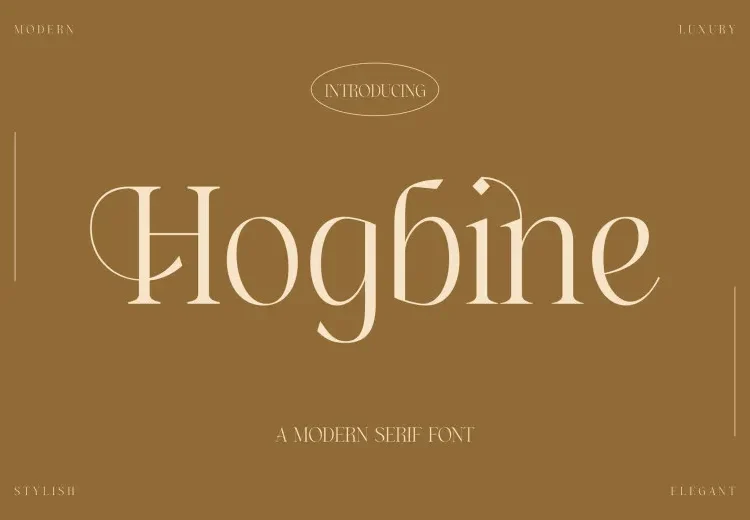
Hogbine Font
Hogbine is an elegant serif typeface that seamlessly blends timeless beauty with a modern edge. Its distinct style and refined appearance make it the perfect choice for a variety of creative projects. Whether designing luxurious logos, crafting striking movie or book titles, or creating sophisticated fashion label designs, Hogbine elevates every application with its unique charm.
Ideal for magazines, quotes, and decorative lettering, this versatile font brings a touch of class and contemporary sophistication to your work. Its carefully crafted letterforms ensure a polished look, making it suitable for high-end branding and design projects.
From luxurious layouts to memorable text overlays, Hogbine adapts beautifully to different design needs. Its aesthetic balance of classic elegance and modern flair ensures that your creations will leave a lasting impression.